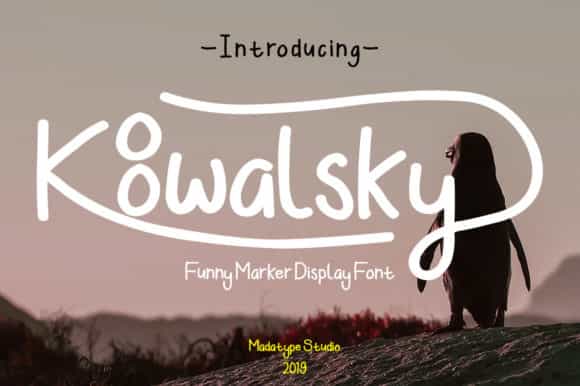
Hello you, thanks for downloading Koowalsky. Koowalsky is a fat and fun display font with a little cheek. anything you write suddenly becomes a statement!